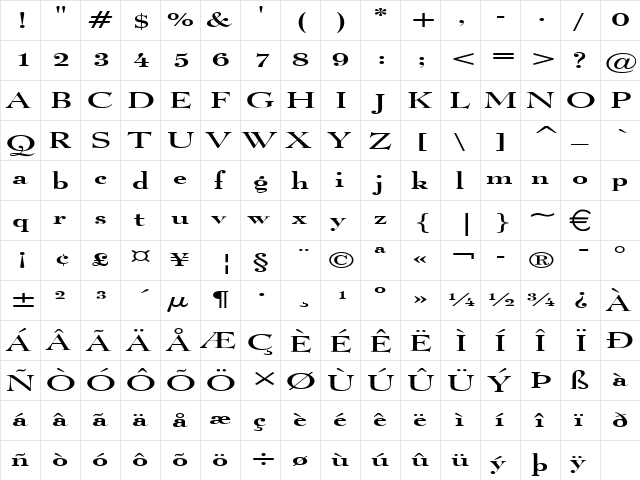
LucianoExtended Normal
Design Context for LucianoExtended Typeface
LucianoExtended is a composed and adaptable typeface that performs quietly and consistently across a wide range of design contexts.